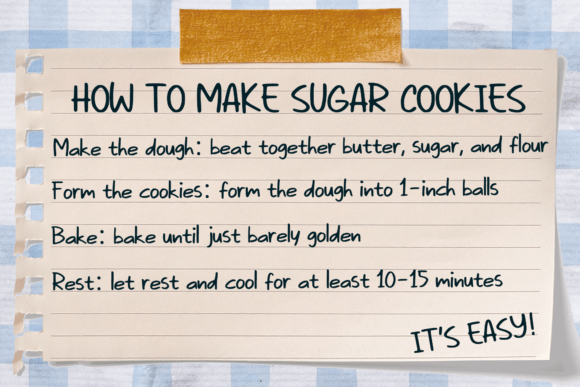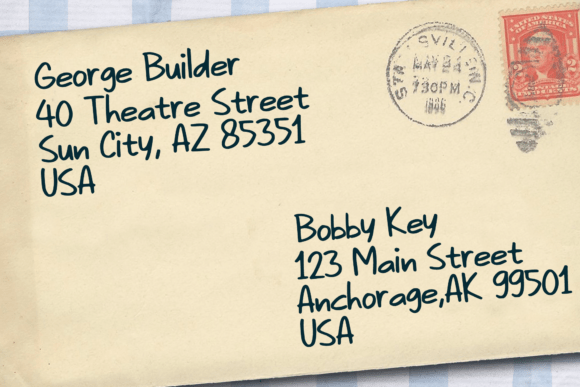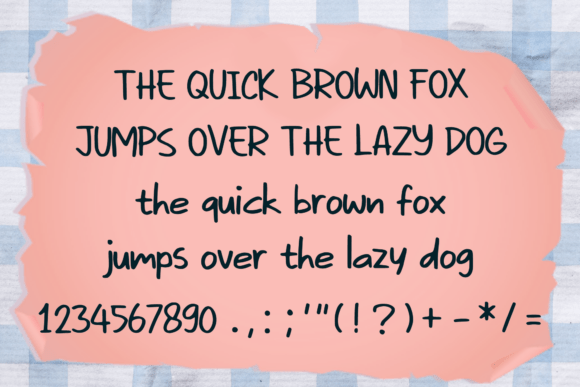
Introduction to School Handwriting Font
Do you remember the thrill of creating a handmade card for your best friend or a colorful poster for your favorite book? Those moments of creative expression are what make design so magical. For many of us, the School Handwriting Font is a nostalgic reminder of our childhood, evoking memories of scribbling notes in our favorite notebook or creating artwork with friends.
As a valuable design resource, the School Handwriting Font offers a unique blend of playfulness and sophistication, making it an ideal choice for a wide range of creative projects. Whether you’re a seasoned designer or just starting out, this high-quality font is a must-have for anyone looking to add a personal touch to their designs. And the best part? It’s available for free download, making it a fantastic addition to any design arsenal.
Key Features of School Handwriting Font
- High-quality, unique handwriting font designed for educational purposes
- Designed to mimic the natural flow and characteristics of handwritten text, adding a personal touch to educational materials and designs
- Perfect for teachers, students, and designers looking for a unique and creative way to enhance their educational materials and projects
Honest Review: School Handwriting Font
I recently stumbled upon the School Handwriting Font while searching for a design resource for a creative project. The font is available as a free download, which is a huge plus for designers on a budget. Upon closer inspection, I found that the School Handwriting Font has a unique and playful touch to it.
- ✨ High-quality design that captures the essence of handwritten text
- ✨ Suitable for a variety of creative projects, from children’s books to educational materials
- ⚠️ The font may not be suitable for all types of projects, as it has a distinct and somewhat informal feel
Overall, I’m impressed with the School Handwriting Font’s unique design and free availability. While it may not be suitable for all projects, it’s a great resource to have in your design toolkit. With a bit of creativity, I can see it being used in a variety of innovative ways.
How to Use School Handwriting Font
The School Handwriting Font is a free download and a valuable design resource for creating high-quality, creative projects. This versatile font is perfect for adding a personal touch to your designs and can be used in a variety of settings.
Tips for Getting the Most Out of the School Handwriting Font
- Combine the School Handwriting Font with other design elements, such as images and graphics, to create unique and eye-catching designs.
The School Handwriting Font is perfect for a variety of creative projects, including:
- Party decorations and signs.